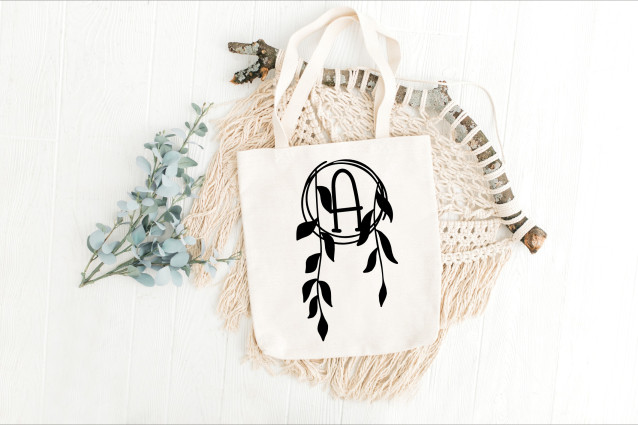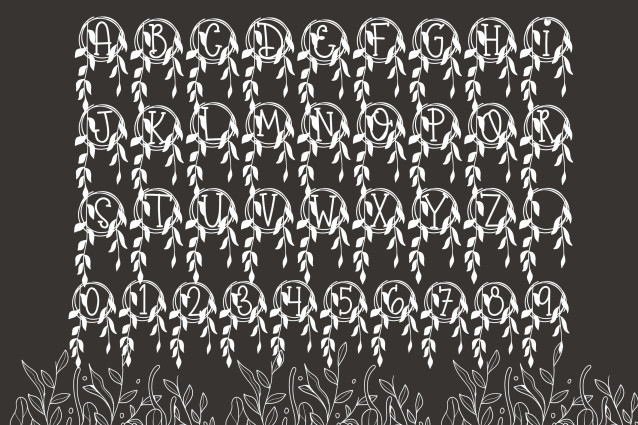
Willow Vine Monogram Font
Willow Vine Monogram Font is a sophisticated serif monogram font featuring graceful willow vine embellishments. Inspired by nature’s flow and soft elegance, each uppercase letter is adorned with delicate trailing vines, perfect for adding a romantic, earthy aesthetic to weddings, branding, and handcrafted gifts.